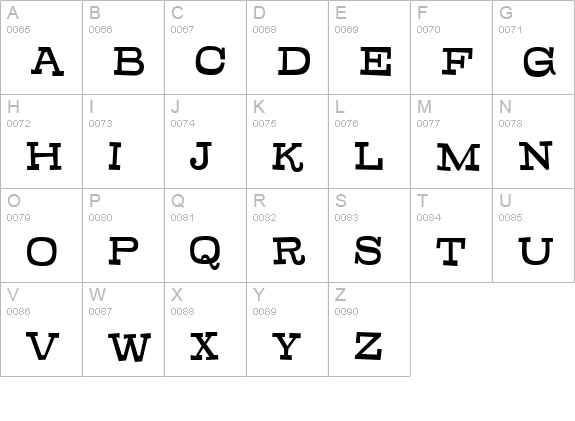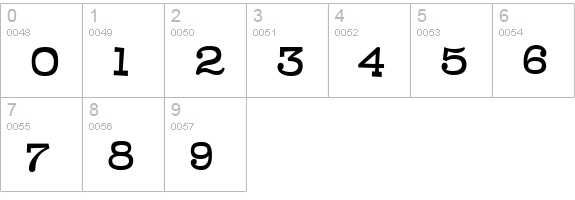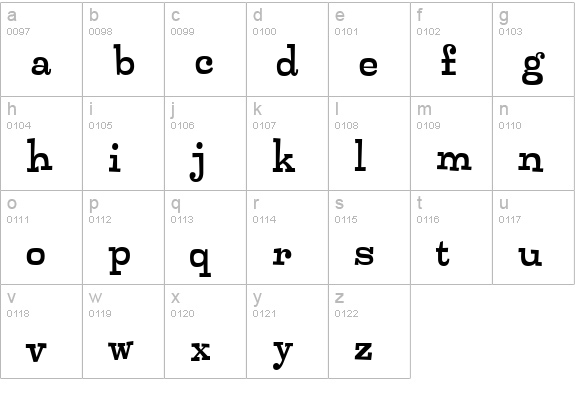
Zalderdash font is a unique and stylish typeface that combines elegance with a touch of whimsy. Its playful yet sophisticated design makes it perfect for a wide range of creative projects, from branding to invitations to social media graphics. The fluid curves and distinctive letterforms of Zalderdash font add a sense of personality and charm to any text. And the best part? Zalderdash font is available for free download at FontsMarket.com! This means you can easily access this eye-catching font and use it in your designs without any cost. Whether you're a professional designer or just looking to add a creative flair to your personal projects, Zalderdash font is a fantastic choice that won't break the bank. Download it today and let your creativity soar with this delightful typeface.